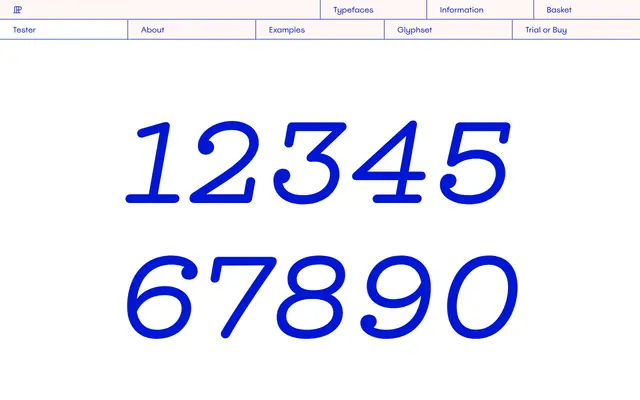
Hellenic Typewriter
A monospaced typewriter face from Polytype with Greek character roots, available in Regular and Italic.
Hellenic Typewriter takes its cues from typewriter typography, with a name suggesting Greek or Hellenic script influence alongside Latin coverage. The family offers Regular and Italic cuts and includes OpenType features. It sits in a niche where fixed-width typewriter aesthetics meet a broader multilingual sensibility.
Named 'Hellenic Typewriter' and categorised under a monospaced typewriter style; the page lists Regular and Italic variants consistent with a fixed-width typewriter-derived design.